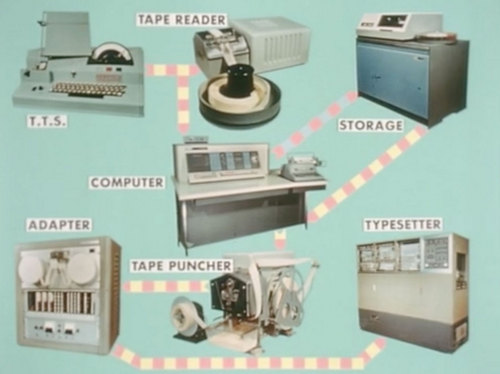
Story of Technology — Setting Type in the 1960s
A film created by the International Typographic Union to display the advancing electronic technology being introduced to typesetting and printing. The film shows an IBM 1620 computer and additional storage disks working with Linofilm typesetters that were installed in July of 1963. There is a very in-depth explanation of the process of early computer and film typesetting. Additionally, new forms of plate making with cameras and photo composition are shown.